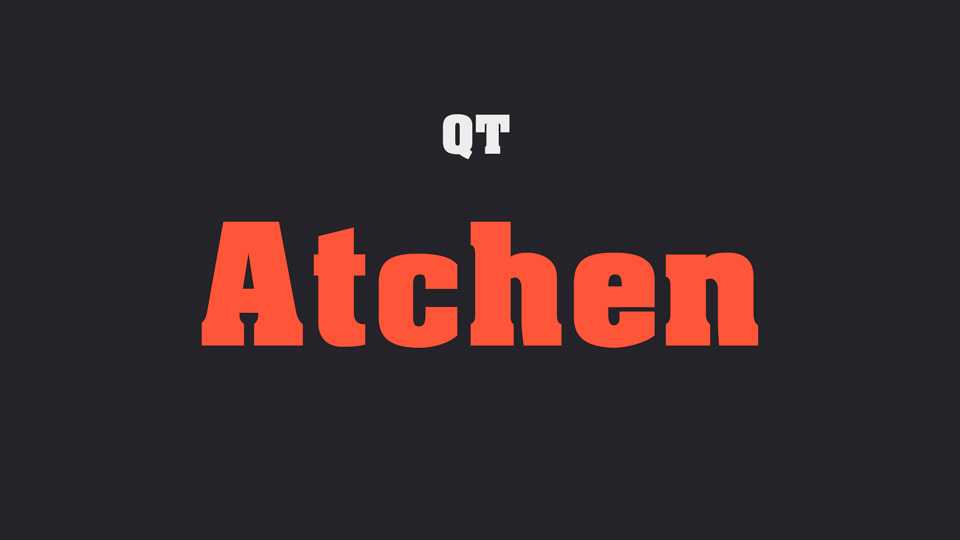
Download Atchen font, a thick strong slab serif typeface. Atchen features sharp outlines, stubby serifs and heavy strokes for use in headlines, posters, signage, apparel and other display uses.